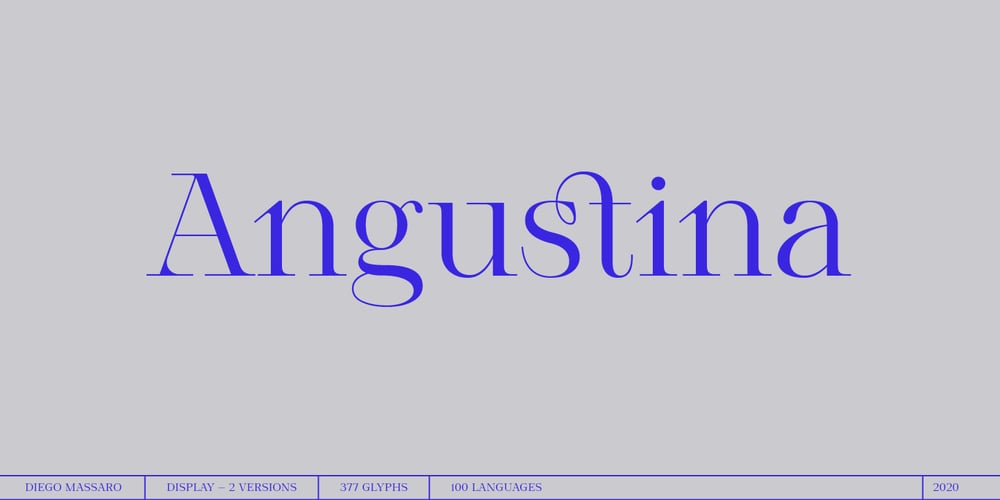
Angustina Font Family was designed by Diego Massaro and published by Diego Massaro. Angustina contains 2 styles and family package options. Angustina is an elegant display typeface, it takes inspiration from classic letter styles. I chose the font name after reading the classic Italian novel “The Tartar Steppe”. I was inspired by the sickly, stoic and mysterious man who differs for his willingness to stay at Fort Bastiani. Angustina conveys distress and stinging sensation with extreme contrasts between thick and thin strokes and exasperated serifs. The alternate of hairline and bracketed serifs gives Angustina a modern and military appearance.